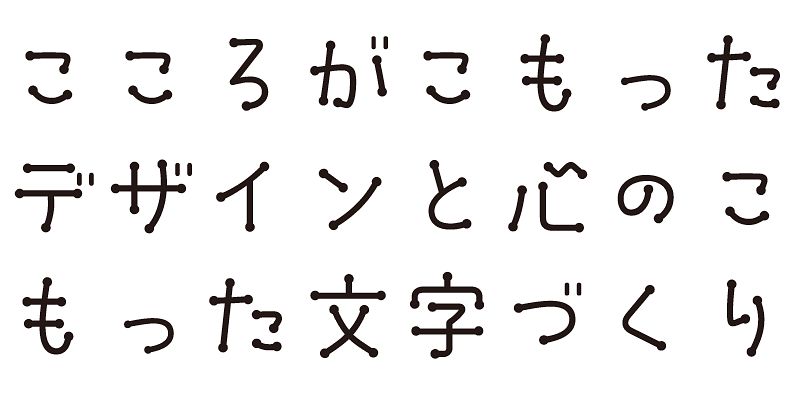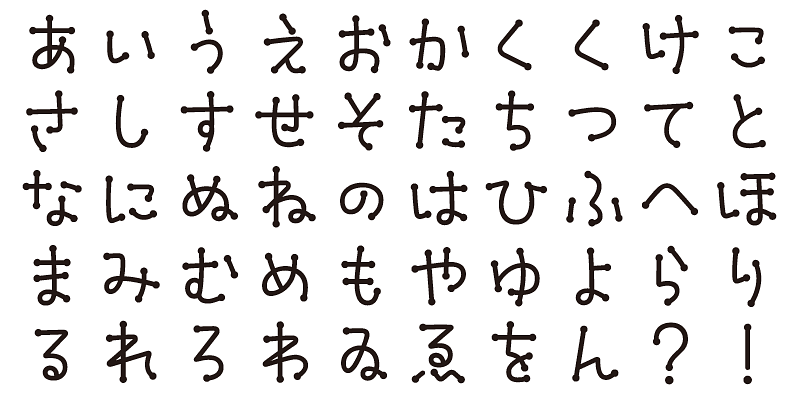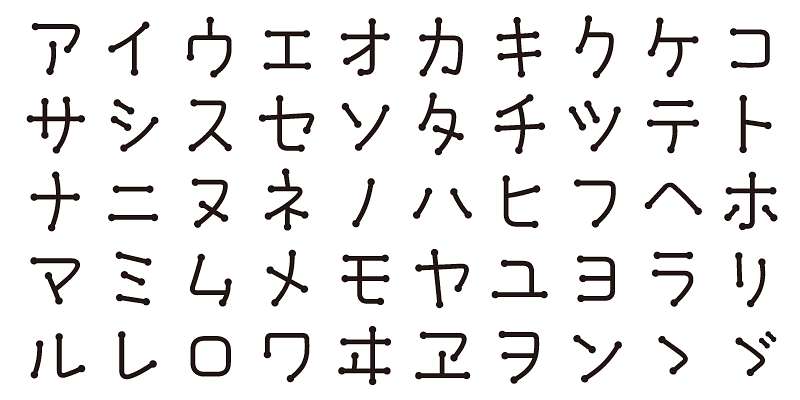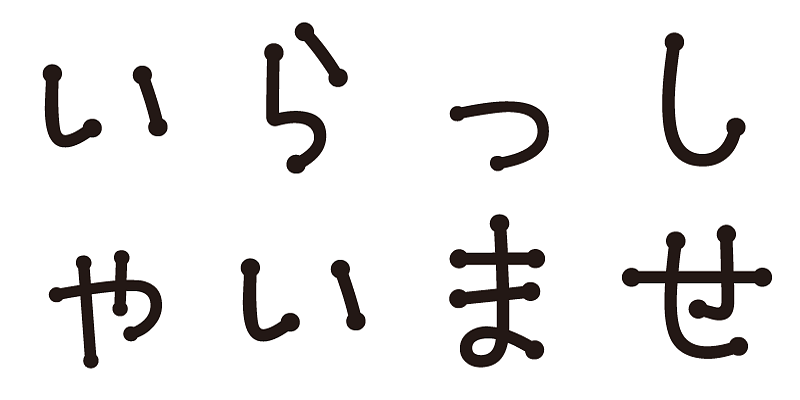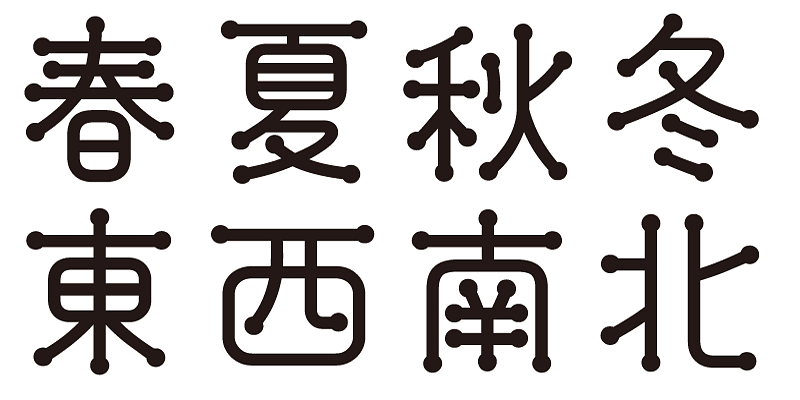
This typeface has the flavor of handwriting. The starts and finishes of some strokes are slanted and accented as if from pen pressure.
Each font in this typeface family includes 1,000 kanji characters, as well as hiragana, katakana, alphanumeric characters, and punctuation marks.
We design typefaces with the hope that they will add underlying meaning to words expressed. We wish the user to feel good and experience comfort and joy when using these typefaces.